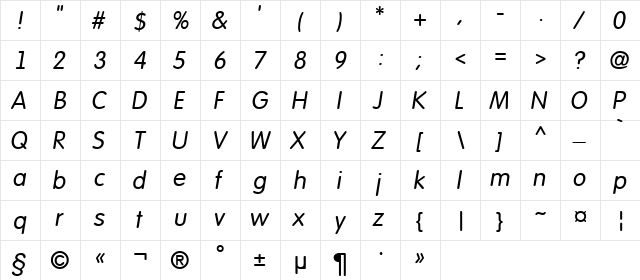
a_FuturaRound Italic
Design Context for a_FuturaRound Typeface
a_FuturaRound channels digital-age aesthetics through its sharp, structured letterforms — ideal for brands that want to signal innovation. The slanted form adds forward momentum and visual energy.
Pro Tip: Try a_FuturaRound with generous letter-spacing in UI labels and navigation — the geometric forms benefit from room to breathe.